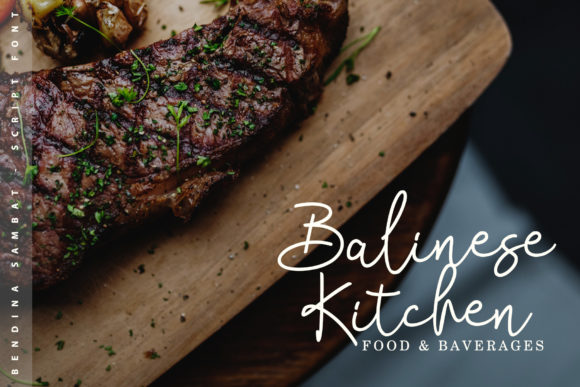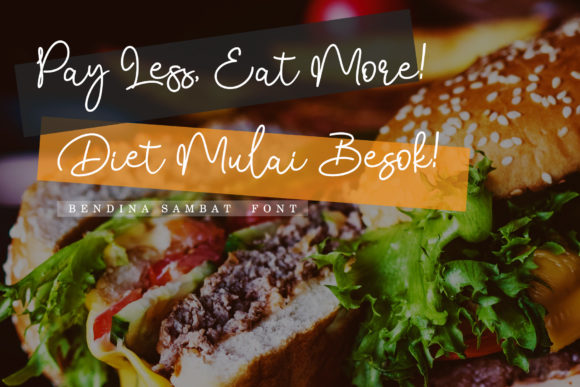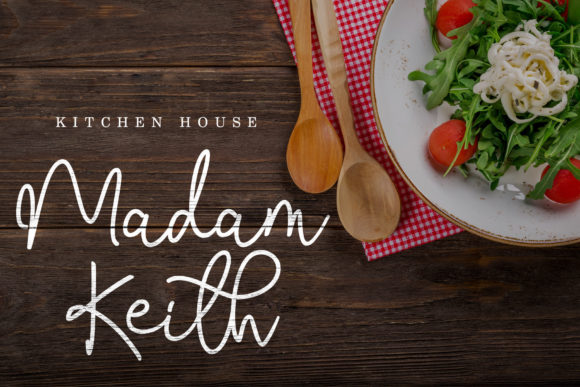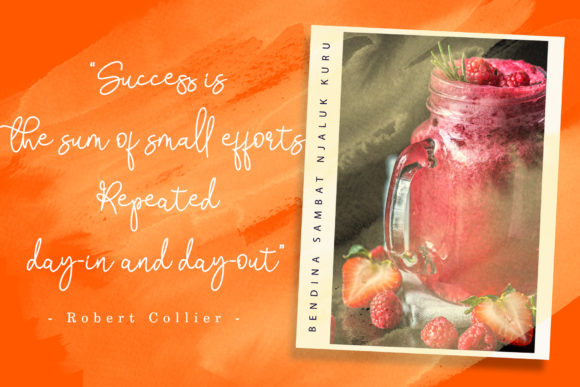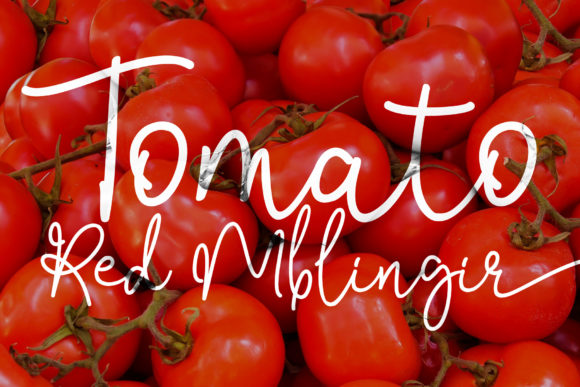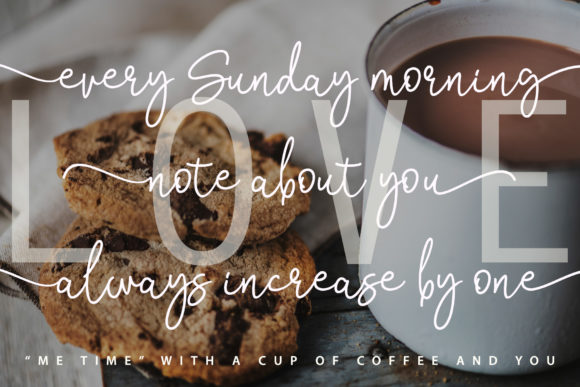
Bendina Sambat Font: Elevate Your Design with Sophistication and Class
In the world of design, typography plays a pivotal role in conveying messages, evoking emotions, and creating lasting impressions. Among the myriad of fonts available to designers and crafters, the Bendina Sambat Font stands out for its unique blend of sophistication and class. This article aims to explore the features, benefits, and creative applications of the Bendina Sambat Font, highlighting how it can transform any design project into a standout masterpiece.
Introduction to Bendina Sambat Font
The Bendina Sambat Font is a typeface that exudes elegance and refinement. Its design is characterized by clean lines, precise letterforms, and a harmonious balance that appeals to the eye. Whether you’re working on a branding project, a website design, or crafting materials, this font offers the versatility and aesthetic appeal needed to elevate your work.
Bendina Sambat Features: A Closer Look
Bendina Sambat features an incredibly sophisticated and classy feel, making it an ideal choice for projects that demand a high level of professionalism and style. Some of its key features include:
- Unique Letterforms: Each letter in the Bendina Sambat Font is carefully crafted to contribute to the overall elegance of the typeface.
- Versatility: It can be used across various design projects, from digital platforms to print materials.
- Readability: Despite its sophisticated look, the font maintains a high level of readability, making it suitable for both headings and body text.
- Cross-Platform Compatibility: The font is designed to perform well across different devices and browsers, ensuring consistency in your design.
Benefits of Using Bendina Sambat Font
The benefits of incorporating the Bendina Sambat Font into your design projects are numerous:
- Enhanced Aesthetic Appeal: It adds a touch of sophistication and elegance, setting your design apart from more generic typefaces.
- Professionalism: The font’s classy feel makes it perfect for professional and business-related projects, helping to build trust and credibility.
- Flexibility: Its versatility means you can use it in a wide range of applications, from logos and branding to websites and marketing materials.
- Emotional Connection: The right typography can evoke emotions and create a connection with your audience. Bendina Sambat’s unique style can help achieve this.
Creative Applications of Bendina Sambat Font
The creative possibilities with the Bendina Sambat Font are endless. Here are a few ideas to get you started:
- Branding and Logos: Use it to create a memorable logo or to develop a cohesive brand identity.
- Website Design: Enhance your website’s typography to improve user experience and make your content more engaging.
- Marketing Materials: From brochures and flyers to business cards, this font can elevate the look and feel of your marketing materials.
- Packaging Design: Add a touch of elegance to your product packaging to make it stand out on store shelves.
The Bendina Sambat Font is a powerful tool for designers and crafters looking to infuse their projects with a sophisticated and classy feel. Its unique features, versatility, and aesthetic appeal make it an excellent choice for a wide range of design applications. By incorporating the Bendina Sambat Font into your work, you can create designs that not only look great but also leave a lasting impression on your audience.
Whether you’re aiming to build a strong brand identity, create engaging content, or simply add a touch of elegance to your design, the Bendina Sambat Font is sure to deliver. Explore its possibilities and discover how it can elevate your design projects to new heights of sophistication and style.